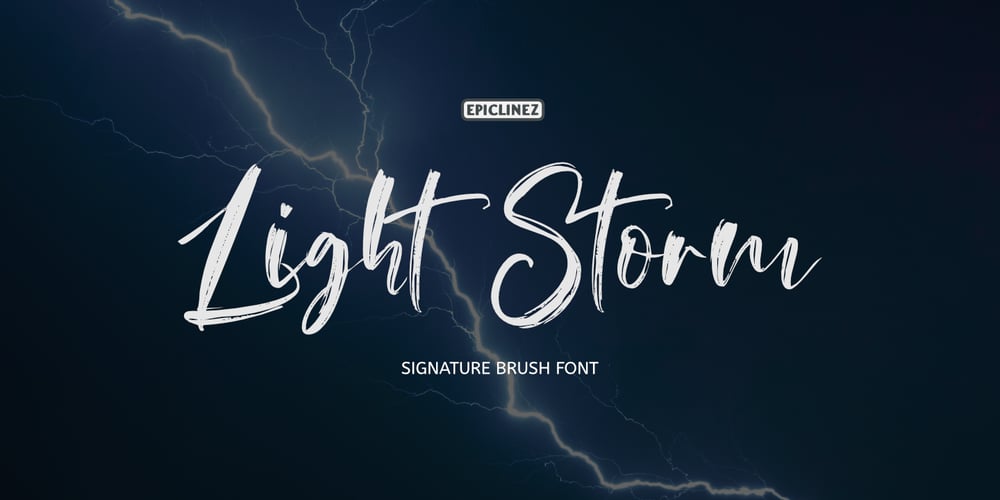
Light Storm
Light Storm font
Light Storm Font Family was designed by Aldy Sidik and published by Epiclinez. Light Storm contains 1 styles and family package options. Light Storm is an urban styled handwritten font, designed with the help of a brush pen. This signature script font is a good choice for creating eye catching logos, branding and quotes.